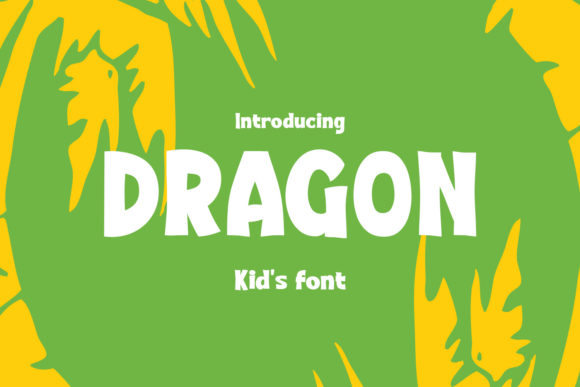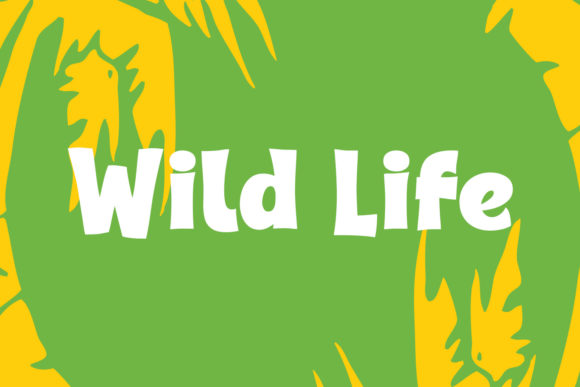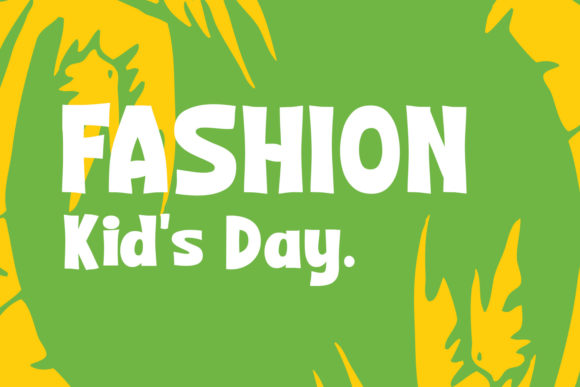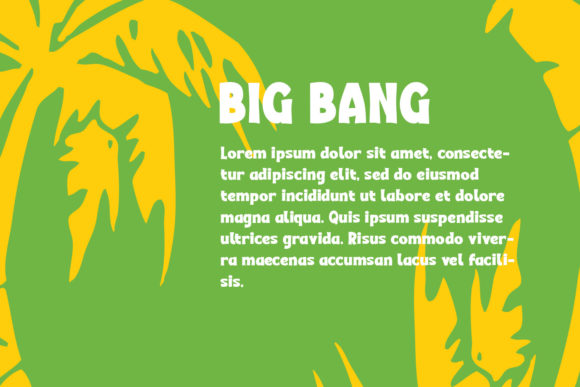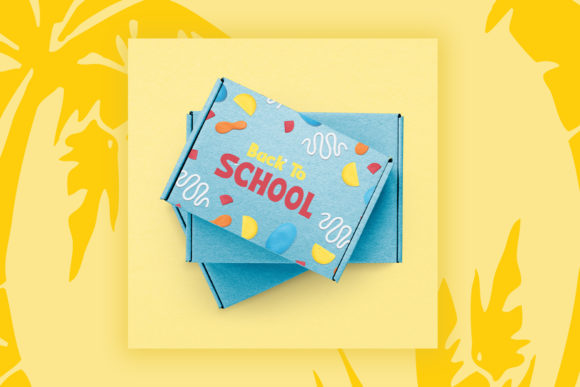
Dragon Kids Font
Dragon is a fun and playful kids' display font designed to bring creativity, excitement, and imagination to children's projects. Featuring bold, hand-drawn letterforms with a cheerful personality, Dragon is perfect for designs that need a friendly and energetic touch.
Inspired by adventure, wildlife, and childhood creativity, this font is ideal for educational materials, children's books, toy packaging, school projects, birthday invitations, games, and fun branding. Its playful character makes every word stand out while remaining easy to read for young audiences.
Whether you're creating colorful packaging, classroom resources, event posters, or kid-focused marketing materials, Dragon adds a joyful and adventurous feel to every design.
Features
- Fun and playful display font
- Kid-friendly letterforms
- Bold and highly readable design
- Perfect for colorful and creative projects
- Great for print and digital use
- Easy-to-use character set
- Eye-catching and memorable style
Perfect For
- Children's Books
- School Projects
- Educational Materials
- Toy Packaging
- Birthday Invitations
- Kids' Fashion Branding
- Posters & Flyers
- Cartoon & Game Designs
- Social Media Graphics
Why Choose Dragon?
Dragon is designed to capture the spirit of childhood adventure and creativity. Its playful style instantly adds fun, energy, and personality to any project aimed at children and families.